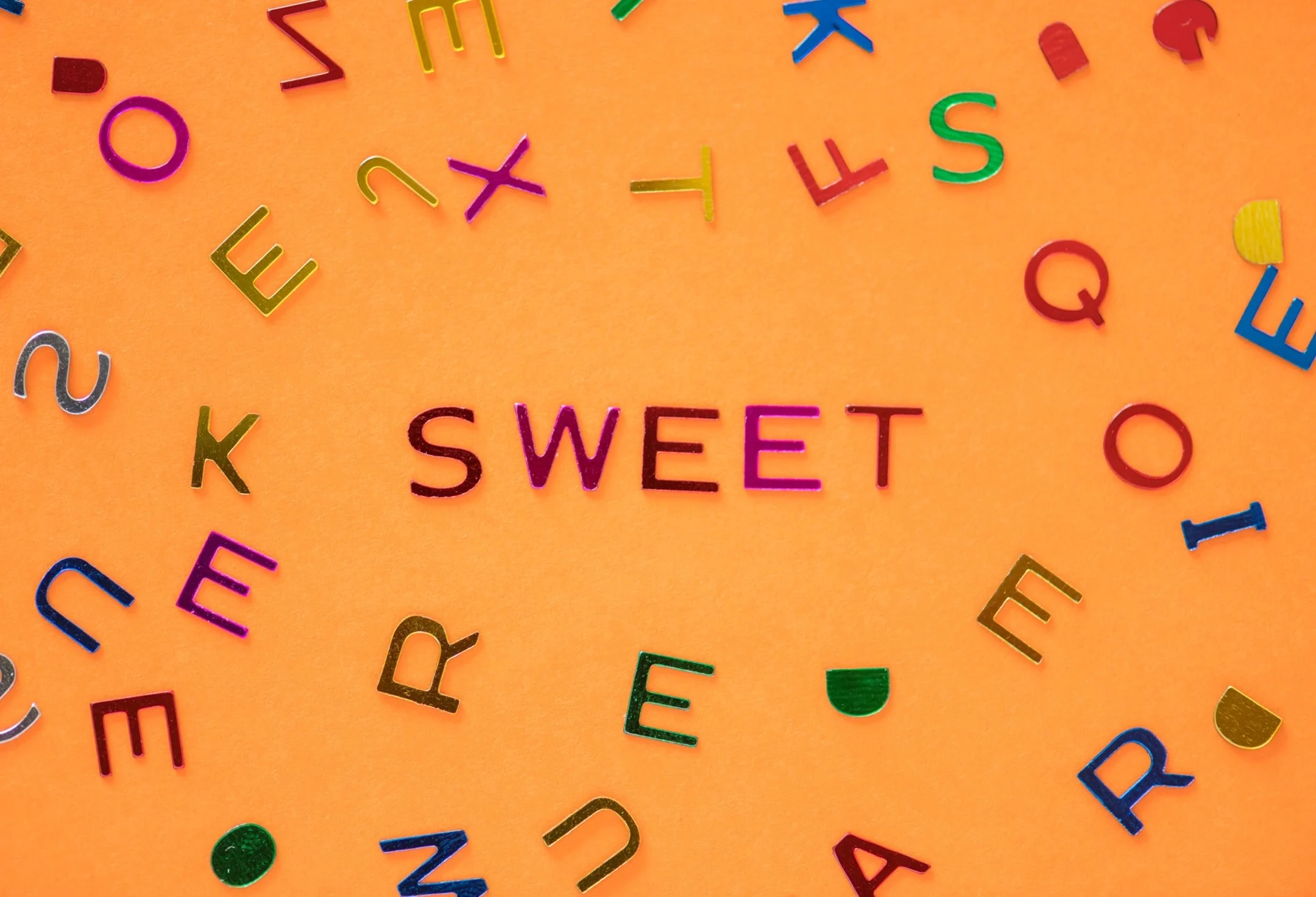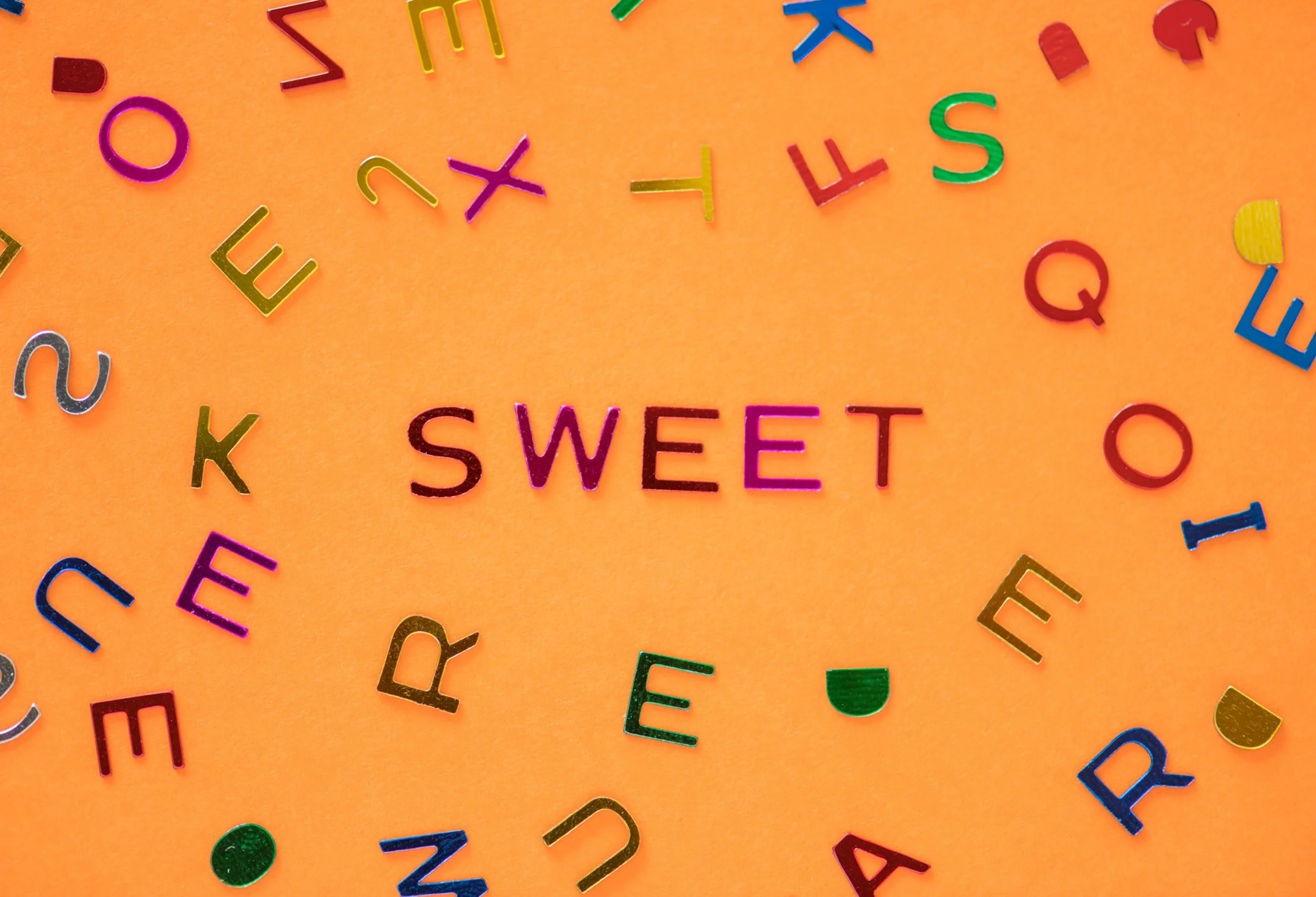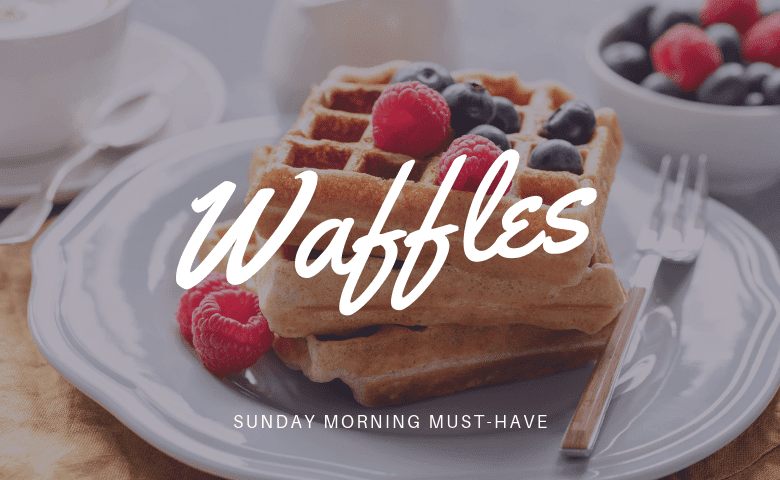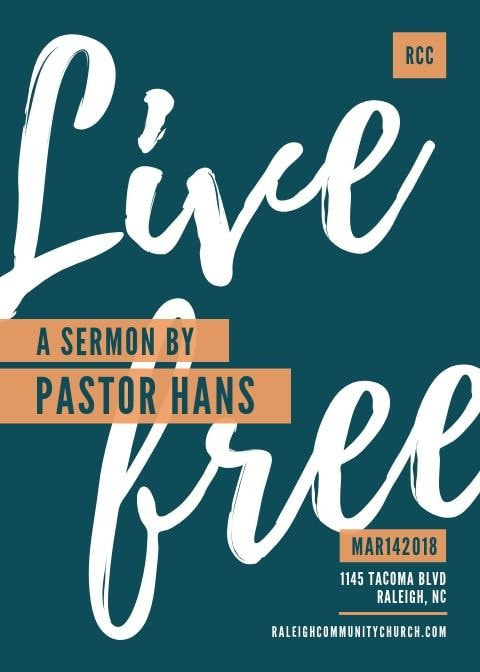
Knowing how to use fonts effectively doesn’t need to be a daunting task.
When used with purpose, style and attention, fonts can make a design stand out, convey a brand clearly and get a message to jump off the page. Mastering the art of fonts is crucial for design success so take these tips about how to use fonts effectively.
First up, don’t confuse your serif, sans serif, and script.
Serif: A letter or character with an extra stroke, line or flourish at the ends
Sans serif: A letter or character without the extra flourish at the ends (sans means ‘without’)
Script: A letter with fluid stroke like cursive writing
Second up, know where and when to use them:
Typographic hierarchy refers to the order that text is read. The eye is naturally drawn to large or dominant elements, so choose the largest font size for the most important message—the title—followed by the subtitle and body text.
Remember, some fonts look better in short sentences and some fonts work better for paragraphs and each font has a different width, height, thickness, style, and size.
Fonts come in different shapes and sizes. Using one font family and making use of size, style and uppercase and lowercase can create contrasting titles and subtitles.
The fonts in the Weekender image have contrast with lower case text for the heading and uppercase text for the subtitle. Font size enhances this contrast.
The font Raleway has been used in two different styles in the Rainforests image: heavy for the title and regular for the subtitle.
Titles with all capital letters can really make your message stand out. They look elegant for short blurbs, titles and subtitles but a paragraph in all-caps can be difficult to read.
Note that script and more elaborate fonts shouldn’t be used as all-caps, so use sentence case and lowercase letters when using those fonts.
Readability is essential for any design, especially for longer sections of text. Avoid using elaborate (script) fonts or uppercase letters for body, as it can strain the eye. Save these options for titles or headings.
The graphic above uses a (subtle) serif font for the block of text and sans serif font the line underneath. Both are very readable. Using a white font over a dark background increases the readability.
Play with the size of letters and the spaces in between for alignment and to create blocks of text.
In this image, size and spacing have been adjusted so the text forms a rectangle shape and creates a geometric block of text.
A font should always enhance the message (or vibe) you are trying to convey; and pairing up fonts with different personalities will catch people’s attention.
For example, Yellowtail, a cursive font, suits the fun and casual content of the Waffles graphic. Raleway has been used for the subtitle to create balance.
Here are four more fonts that have a personality:
Be elegant and sophisticated with a script or italicized font or an old style or calligraphic font.
Examples include: Parisienne (pictured), Euphoria, Allura, Great Vibes.
Have fun with a font with lively, recognizable or slightly retro characters.
Examples include: Lobster (pictured), Cody Star, Londrina Sketch, Sniglet.
Be cool with an on-trend or timeless geometric sans-serif font.
Examples include: Anton (pictured), Helvetica, Archivo Narrow, Racing Sans One.
Chill out with relaxed serif or italicized font, or a font with has a sense of being hand drawn.
Examples include: Yellowtail (pictured), Sacramento, Pacifico, Satisfy.
Different fonts will appeal to different audiences so always think about who the design is for. For example, Economica might be too serious for a children’s birthday party but Crafty Girls is too young for an office memo. Remember that fonts can set the tone for design.
Ascenders are the rising stems of lower case letters (such as b, d and h) and descenders are the downward tails of lower case letters (such as g, p, and q). The create gaps and spaces you can have fun with such as filling these spaces with subtitles or small lines of text can enhance the way your design is presented.
There are rules when it comes to using fonts, but then again, rules are made to be broken. So remember the font fundamentals and then get creative have some font fun.